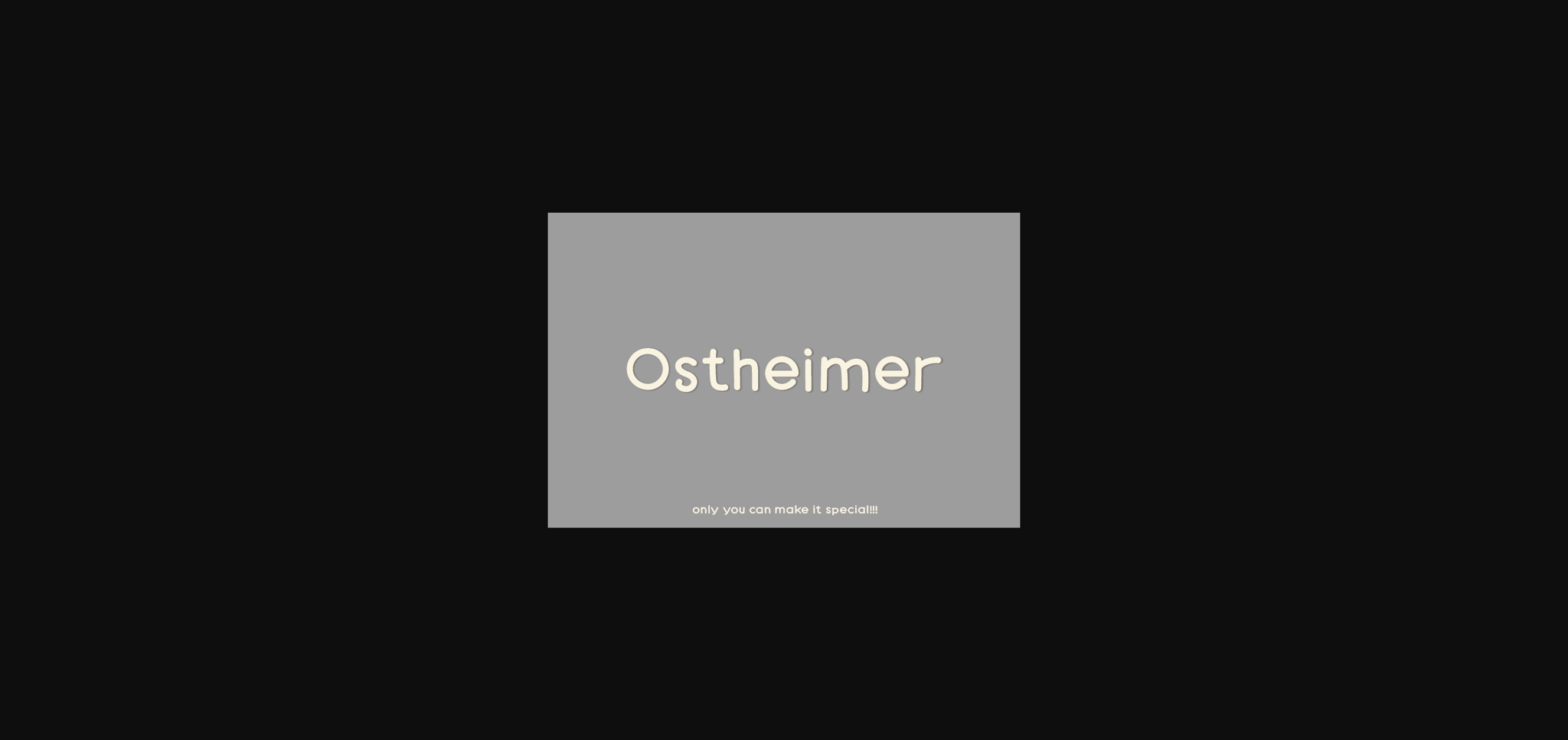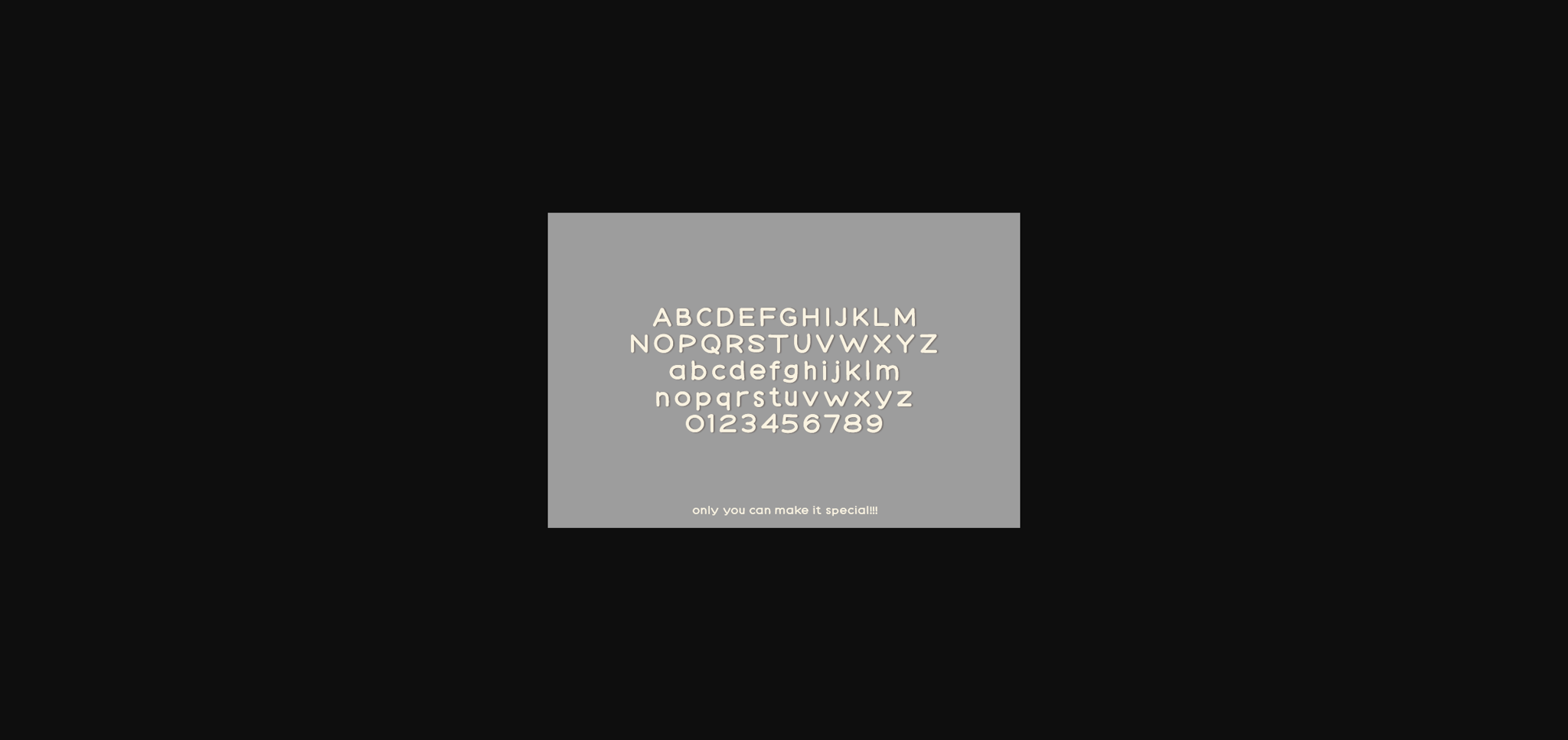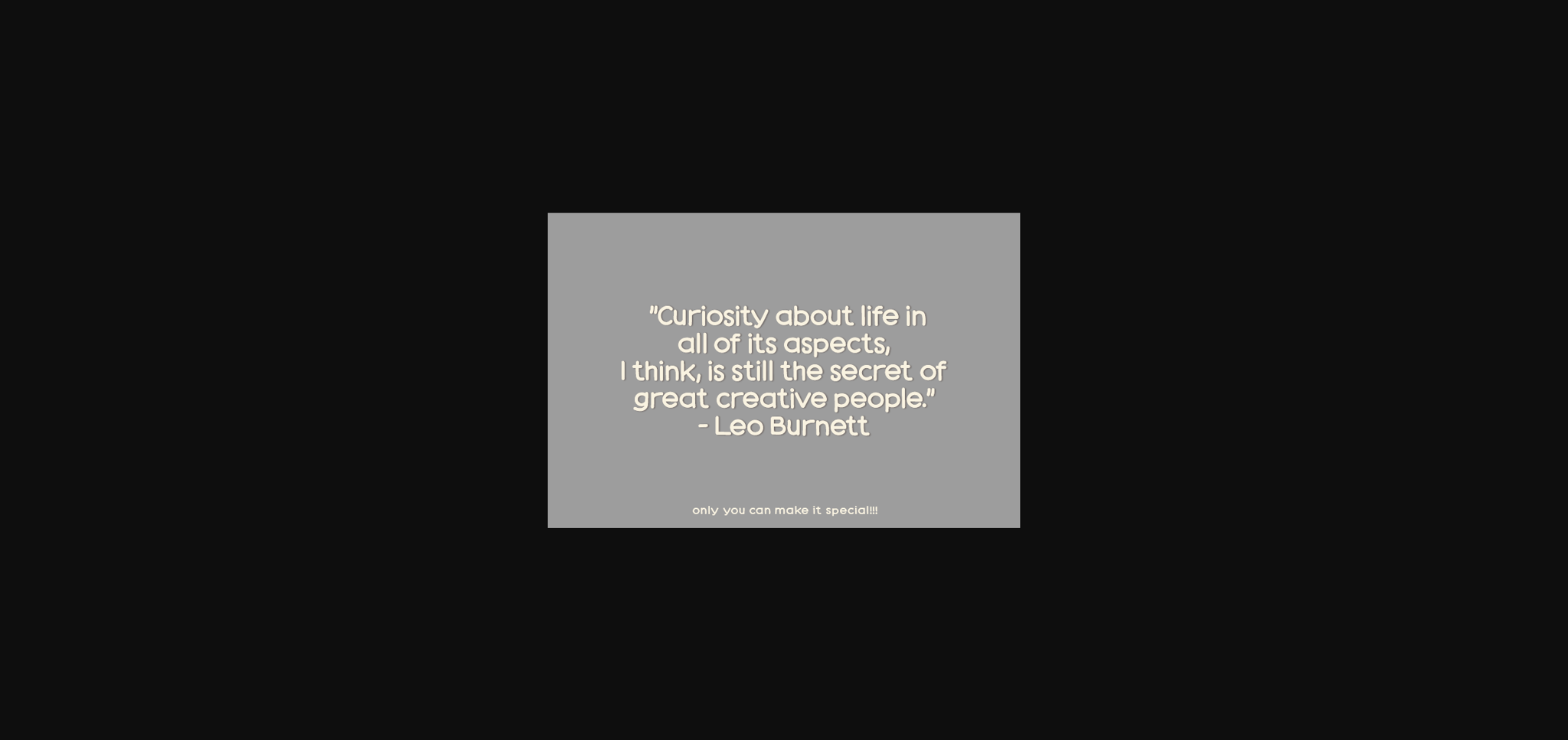
About Ostheimer Font
Ostheimer is a natural sans serif font without changing a single node in each character’s indentation, this makes this font very interesting and unique. Perfect for quotes, notes, tees, and any product design.